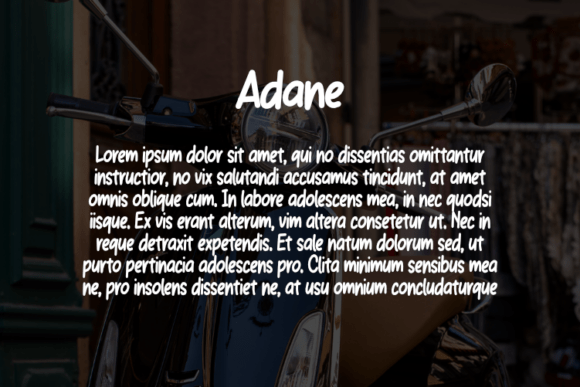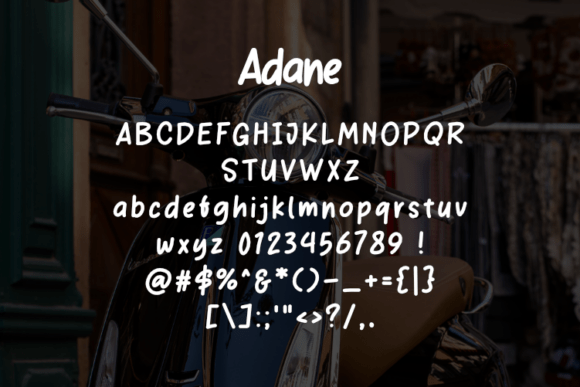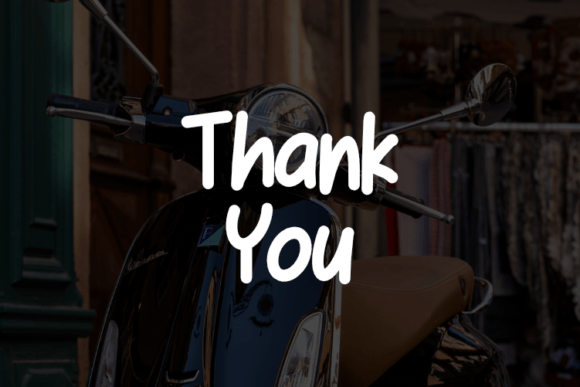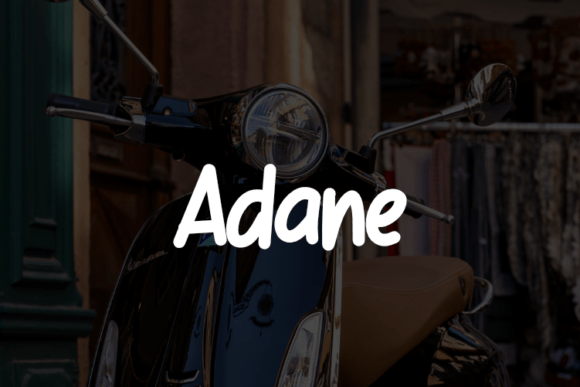
Unlock Endless Design Possibilities with Adane Font
Are you a designer or crafter looking for a font that can elevate your creative projects? Look no further than Adane Font, a remarkably versatile font designed for garment design, t-shirt creation, and other product design ventures. With its perfect blend of style and adaptability, Adane is poised to transform your ideas into life.
The Perfect Fusion of Style and Adaptability
Adane Font is designed to cater to endless design possibilities, whether you’re aiming for subtle minimalism or striking boldness. Its unique design ensures that your creations stand out, while its adaptability allows you to experiment with various design styles and themes. With Adane, you can:
• Create stunning garment designs that showcase your brand’s personality
• Design eye-catching t-shirts that grab attention
• Develop unique product designs that reflect your style
Transform Your Ideas with Simplistic Elegance and Distinctive Charm
Adane Font boasts a simplistic elegance and distinctive charm that sets it apart from other fonts. Its clean lines, smooth curves, and balanced design elements make it perfect for creating visually appealing designs. Whether you’re designing for fashion, lifestyle, or home decor, Adane’s unique character shines through, adding an extra layer of sophistication to your creations.
Endless Design Possibilities with Adane
The versatility of Adane Font knows no bounds. Here are just a few examples of the many design possibilities you can explore:
• Fashion design: Create stunning clothing designs, from casual wear to haute couture
• T-shirt design: Design eye-catching t-shirts for personal or commercial use
• Product design: Develop unique product designs for home decor, accessories, and more
• Stationery design: Create beautiful stationery, including business cards, letterheads, and more
Key Features of Adane Font
• Perfect blend of style and adaptability
• Endless design possibilities for fashion, product design, and more
• Simplistic elegance and distinctive charm
In conclusion, Adane Font is a game-changer for designers and crafters looking to elevate their creative projects. With its versatility, compatibility, and unique design, Adane is poised to transform your ideas into life. Download Adane Font today and experience the limitless possibilities it has to offer.